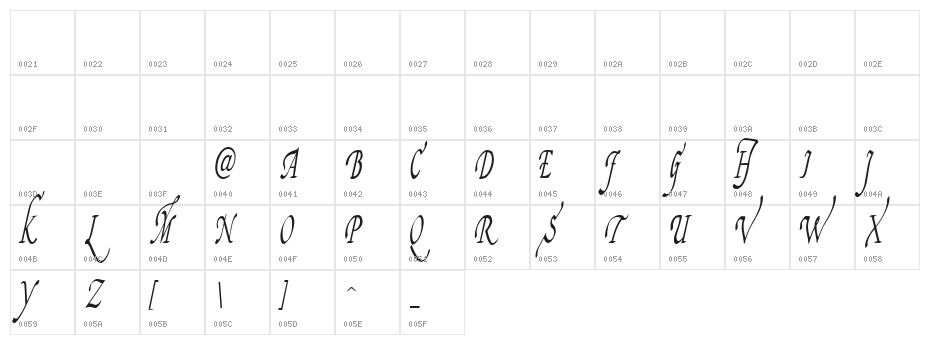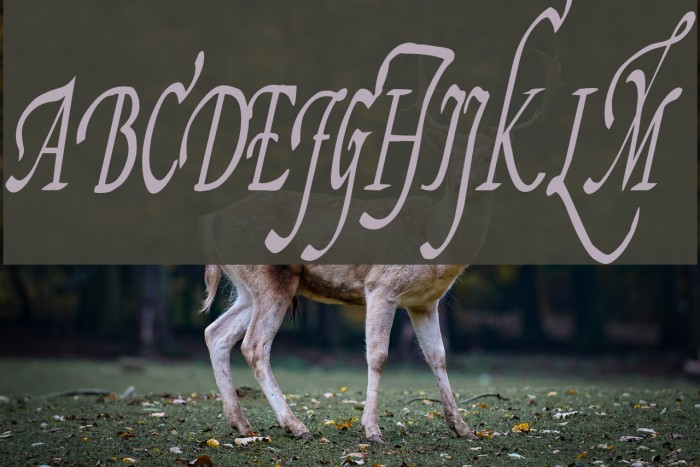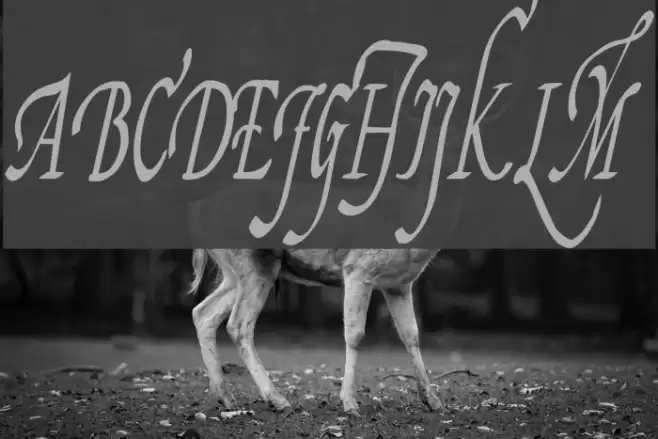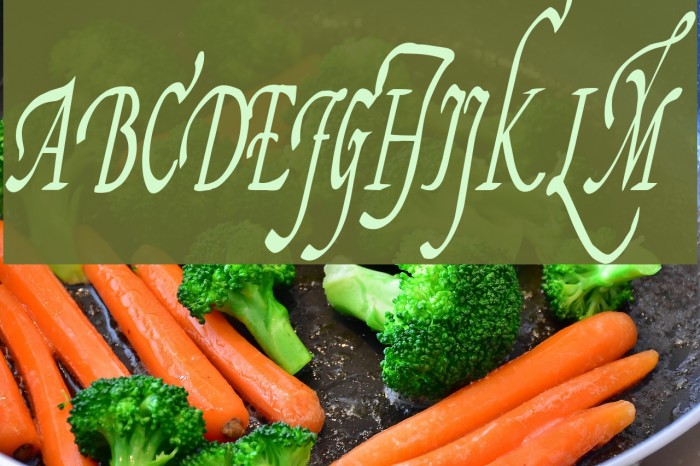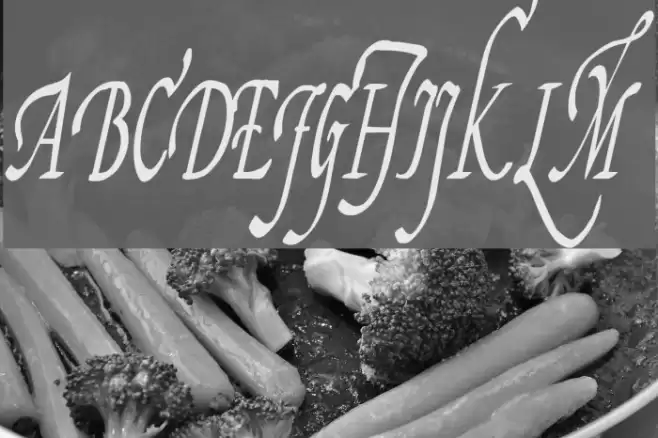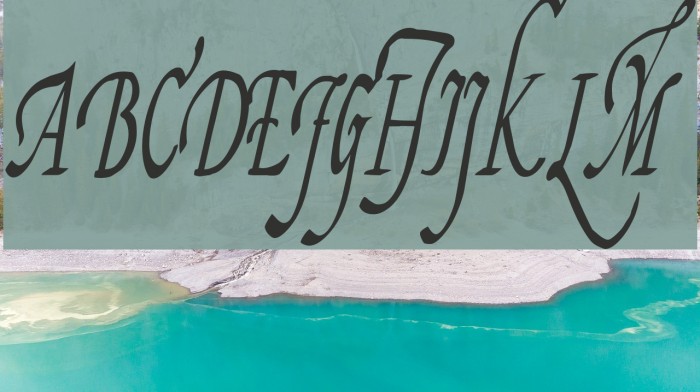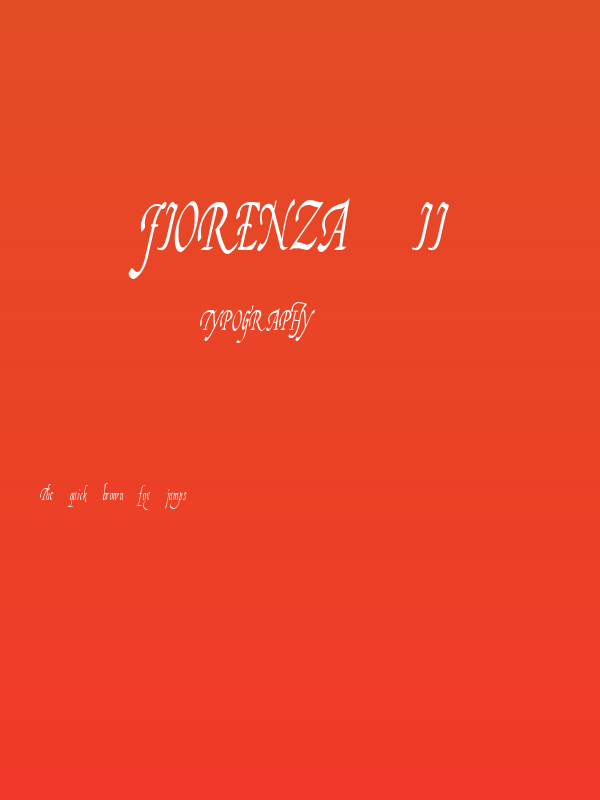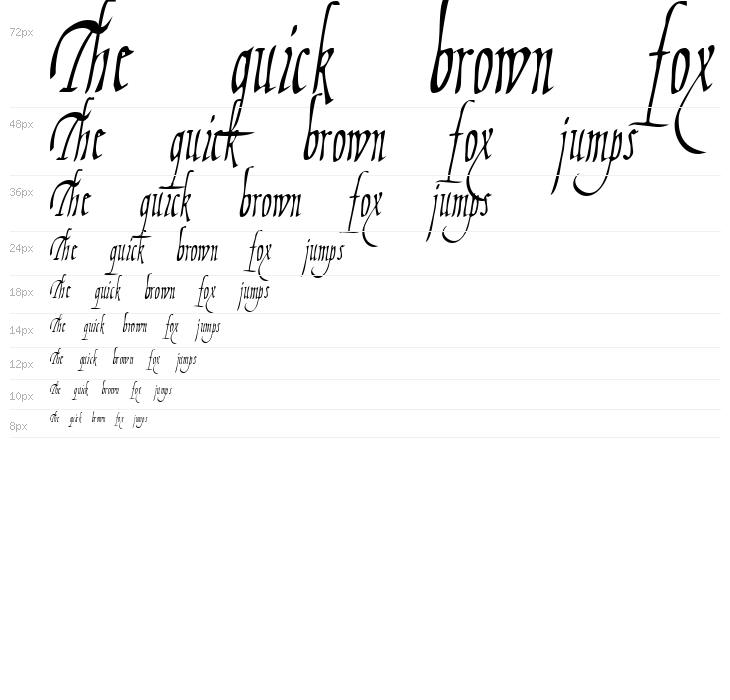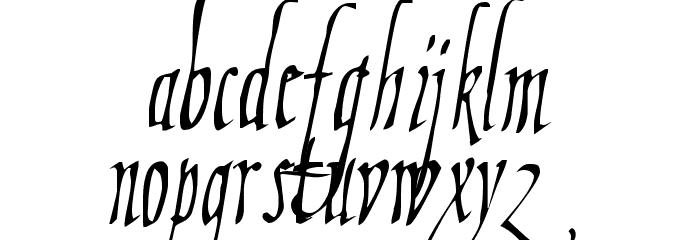
Fiorenza II Font
Fiorenza II Description
This font features an elegant and flowing script style, characterized by its dramatic and sweeping curves. The uppercase letters are particularly ornate, with exaggerated flourishes that give them a sense of movement and grace. The lowercase letters maintain a consistent style, with a slightly more restrained elegance that complements the uppercase. The numbers and special characters are designed to match the overall aesthetic, ensuring a cohesive look across all text elements. This font is ideal for projects that require a touch of sophistication and artistic flair.
| Proposed Projects | Ideal for wedding invitations, luxury branding, artistic posters, and elegant packaging designs. |